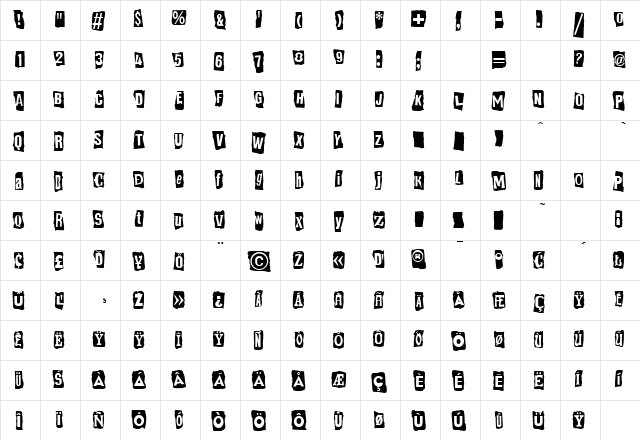
Ransom Note Reversed Normal
Design Context for Ransom Note Reversed Typeface
Ransom Note Reversed is a composed and adaptable typeface that performs quietly and consistently across a wide range of design contexts.